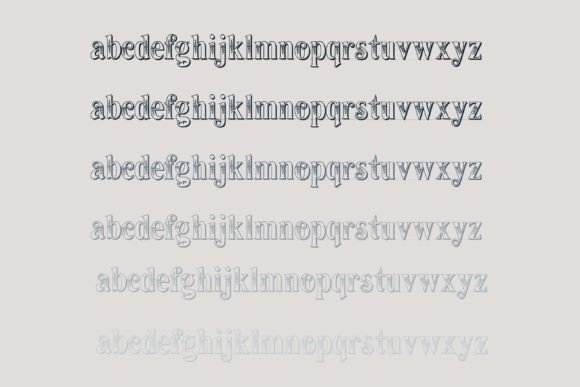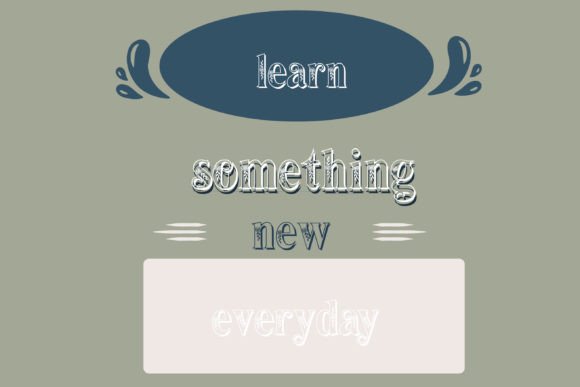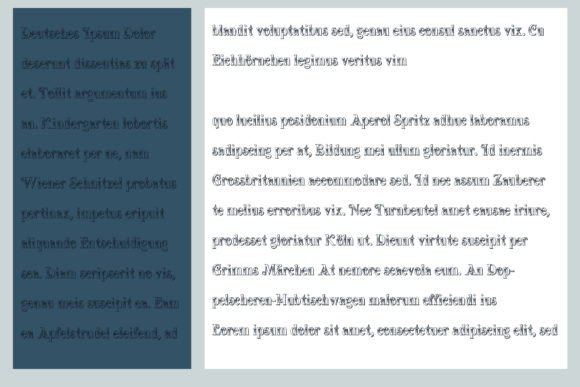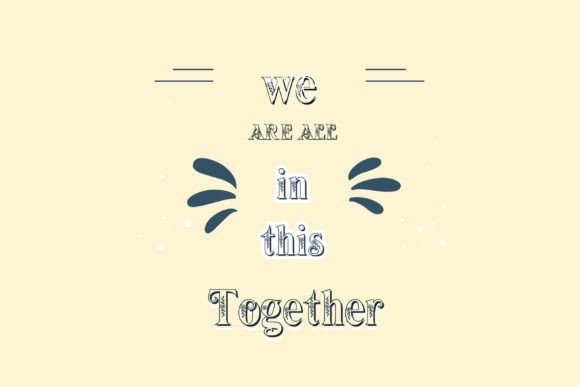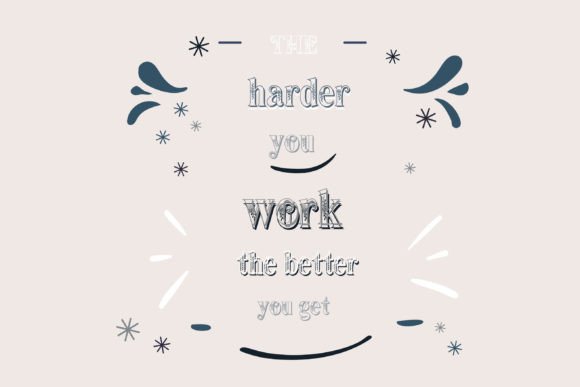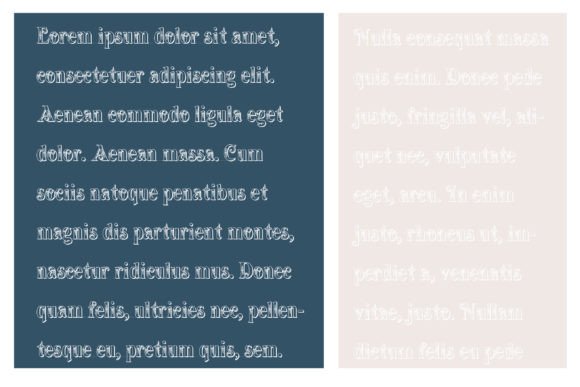
Astoria Formal Font: Elevate Your Designs with Elegance and Sophistication
Are you looking for a font that exudes luxury, sophistication, and classic charm? Look no further than the Astoria Formal Font. This stunning font is perfect for designers and crafters who want to create beautiful, high-end designs that make a lasting impression. In this article, we’ll explore the features and benefits of Astoria Formal Font, and show you how to make the most of this elegant typeface.
The Classic Look of Astoria Formal Font
Astoria Formal Font boasts a classic look that’s reminiscent of traditional calligraphy. Its letters are hollow inside, giving it a delicate and refined appearance that’s perfect for formal designs. The font’s classic style makes it suitable for a wide range of applications, from wedding invitations and event announcements to luxury branding and high-end advertising.
Beautiful Floral Decorations
One of the standout features of Astoria Formal Font is its beautiful floral decorations. These intricate designs add a touch of elegance and whimsy to your text, making it perfect for special occasions and formal events. The floral decorations can be used to create stunning borders, frames, and other design elements that will elevate your work to the next level.
Perfect for Fancy Invitations and Sophisticated Designs
Astoria Formal Font is specifically designed for creating fancy invitations and sophisticated designs. Whether you’re designing a wedding invitation, a formal gala announcement, or a luxury brand identity, this font is sure to impress. Its elegant style and beautiful floral decorations will add a touch of class and sophistication to your work, making it perfect for high-end clients and special occasions.
Features and Benefits of Astoria Formal Font
- Classic look: Astoria Formal Font boasts a timeless, classic style that’s perfect for formal designs.
- Hollow letters: The font’s hollow letters give it a delicate and refined appearance.
- Beautiful floral decorations: Add a touch of elegance and whimsy to your text with the font’s intricate floral designs.
- Perfect for formal events: Astoria Formal Font is ideal for creating fancy invitations, event announcements, and other formal designs.
- Elegant and sophisticated: The font’s elegant style makes it perfect for luxury branding, high-end advertising, and sophisticated designs.
Tips for Using Astoria Formal Font
- Use it for headlines: Astoria Formal Font is perfect for headlines and titles, where its elegant style can really shine.
- Experiment with floral decorations: Don’t be afraid to get creative with the font’s floral decorations – they can add a beautiful touch to your designs.